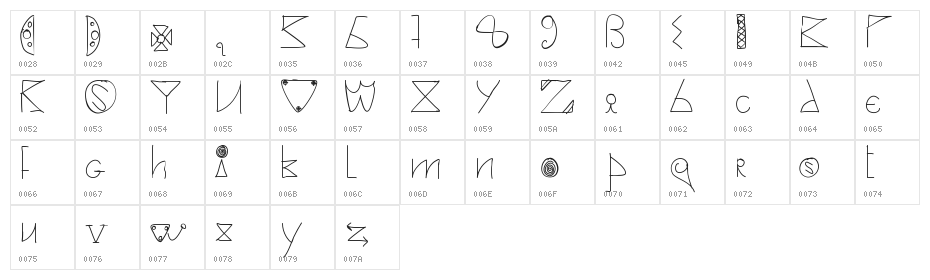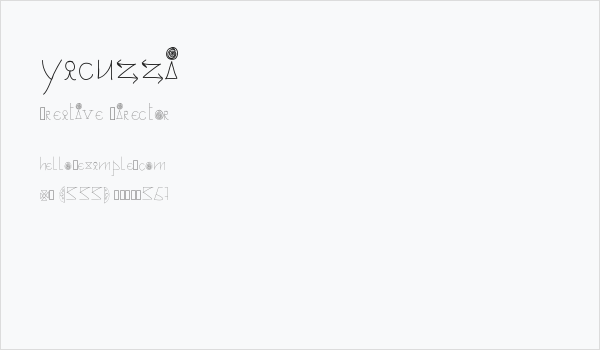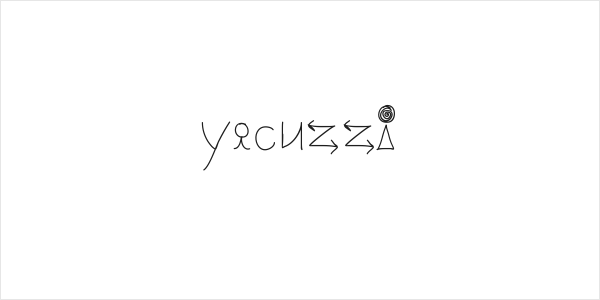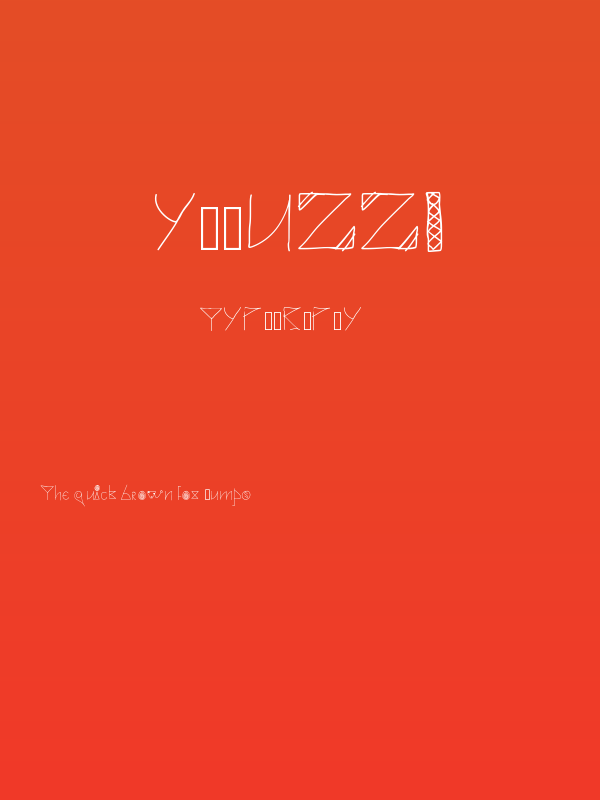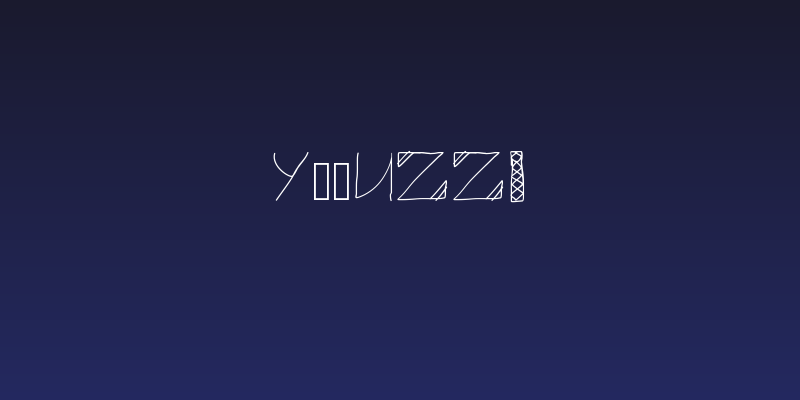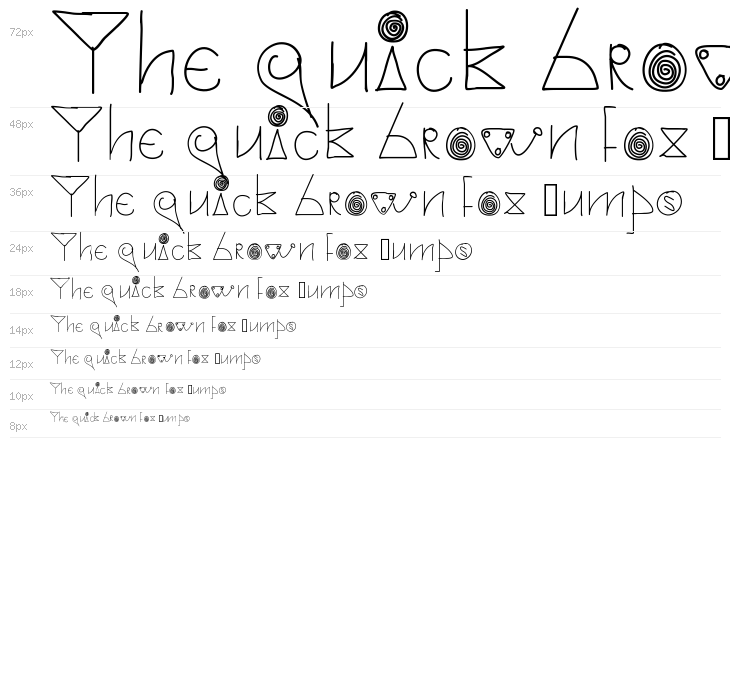
yacuzzi Font
yacuzzi Description
This font features a highly decorative and artistic style, characterized by its unique and abstract letterforms. Each character incorporates geometric shapes and intricate patterns, giving it a whimsical and playful appearance. The uppercase letters are bold and striking, with some incorporating circular or triangular motifs. The lowercase letters maintain a consistent style, with elongated lines and creative embellishments. Numbers and special characters follow the same artistic theme, making the font cohesive and visually interesting. This font is ideal for projects that require a distinctive and eye-catching design.
| Use Case | Logos, Headlines, Posters |
| Proposed Projects | Perfect for artistic posters, creative branding, unique invitations, and decorative signage. |